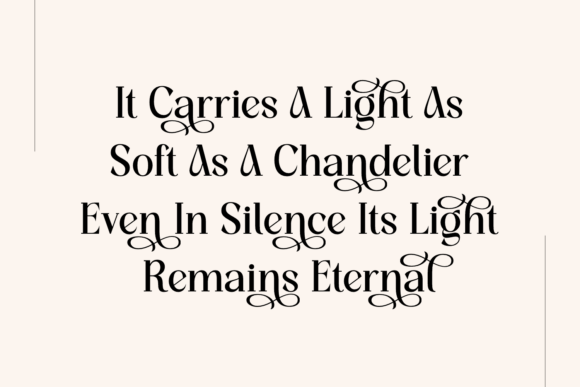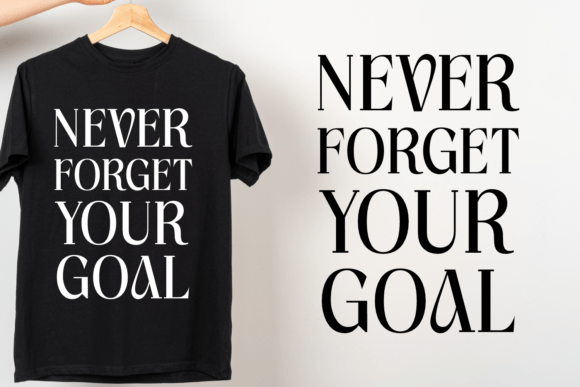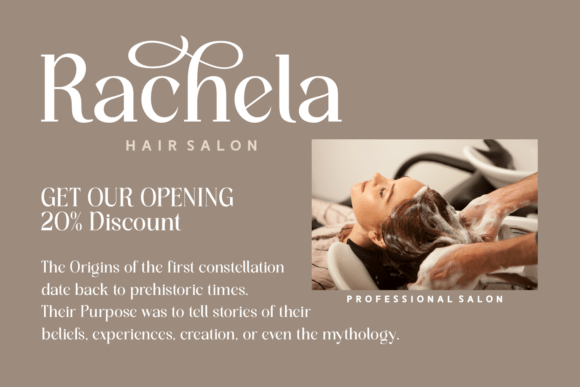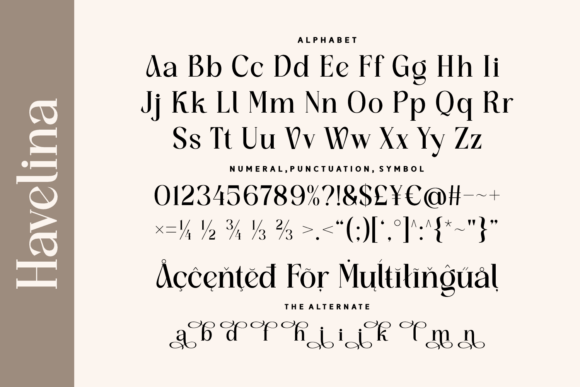
Introducing Havelina Font: Elevate Your Designs with Timeless Elegance
In the world of typography, few fonts manage to strike a balance between modern sophistication and classic charm. Havelina Font is one such exceptional typeface that seamlessly merges timeless elegance with artistic flair, making it a versatile choice for a wide range of design projects. Whether you’re a seasoned designer or a crafty enthusiast, Havelina is poised to elevate your creations to new heights of luxury and refinement.
The Essence of Havelina: A Luxurious Modern Serif Typeface
Havelina is a luxurious modern serif typeface that embodies the perfect blend of sophistication and artistry. Its high contrast strokes, refined serifs, and stunning ornamental swashes are meticulously crafted to bring a sense of romance, class, and prestige to any project. This elegant font is designed to make a lasting impression, making it an ideal choice for designers who aim to create sophisticated logos, wedding invitations, fashion branding, and upscale editorial layouts.
Key Features of Havelina Font
- High Contrast Strokes: Havelina’s high contrast strokes add a touch of drama and elegance, giving your text a refined and luxurious feel.
- Refined Serifs: The font’s serifs are carefully crafted to provide a sense of sophistication and poise, making it perfect for high-end designs.
- Ornamental Swashes: Havelina’s stunning swashes add a touch of artistic flair, allowing you to create unique and eye-catching designs.
Perfect for Sophisticated Designs
Havelina Font is specifically designed to cater to the needs of designers who strive for perfection. Its elegant and refined features make it an excellent choice for:
- Sophisticated Logos: Create a lasting impression with Havelina’s luxurious and refined typography, perfect for high-end brands and businesses.
- Wedding Invitations: Add a touch of romance and elegance to your wedding invitations, making them truly unforgettable.
- Fashion Branding: Elevate your fashion brand with Havelina’s sophisticated and stylish typography, perfect for luxury fashion labels.
- Upscale Editorial Layouts: Bring a sense of prestige and refinement to your editorial designs, making them stand out from the crowd.
Why Choose Havelina Font?
With so many fonts available, why choose Havelina? Here are just a few reasons why designers and crafters alike are falling in love with this luxurious typeface:
- Timeless Elegance: Havelina’s classic design ensures that your projects will remain timeless and relevant for years to come.
- Artistic Flair: The font’s ornamental swashes and refined features add a touch of artistic flair, making your designs truly unique.
- Versatility: Havelina is a versatile font that can be used for a wide range of design projects, from logos and branding to editorial layouts and wedding invitations.
In conclusion, Havelina Font is a luxurious modern serif typeface that is sure to elevate your designs to new heights of sophistication and elegance. With its high contrast strokes, refined serifs, and stunning ornamental swashes, this font is perfect for designers and crafters who strive for perfection. Whether you’re creating sophisticated logos, wedding invitations, fashion branding, or upscale editorial layouts, Havelina is the go-to choice for designers aiming to impress.